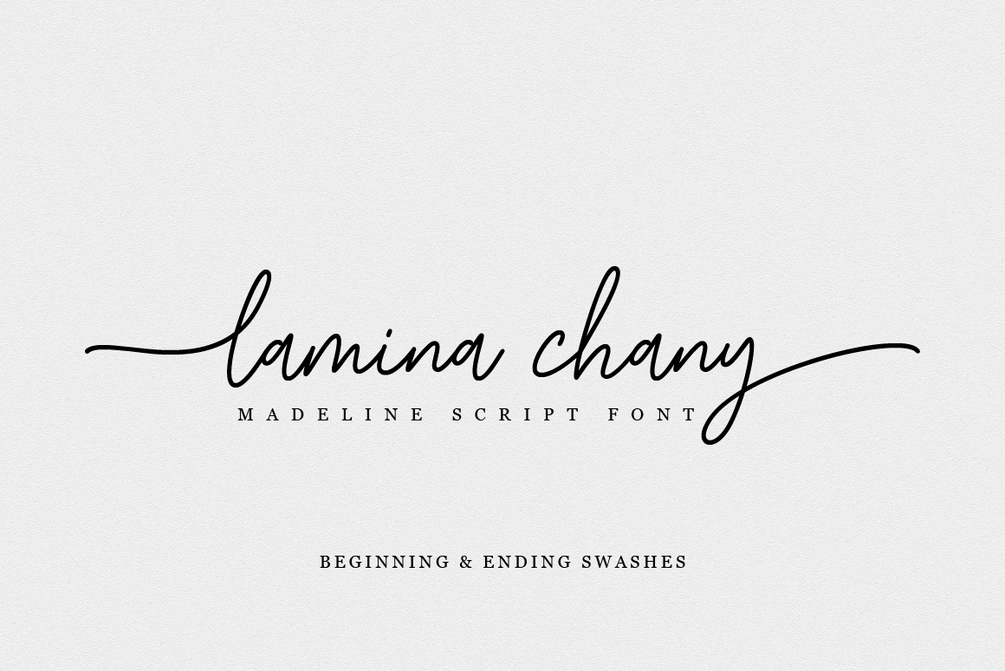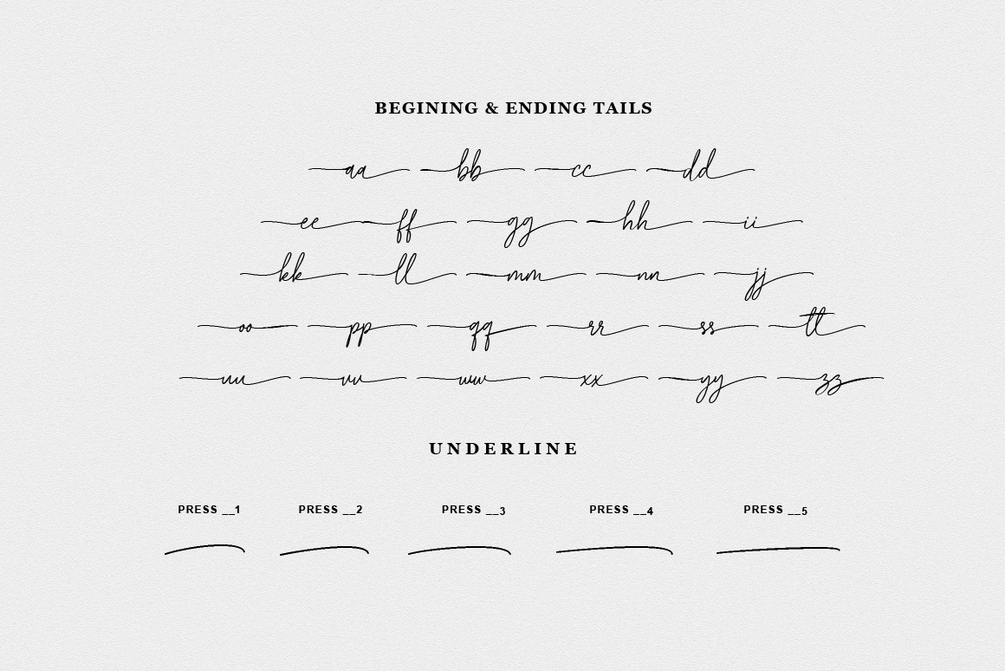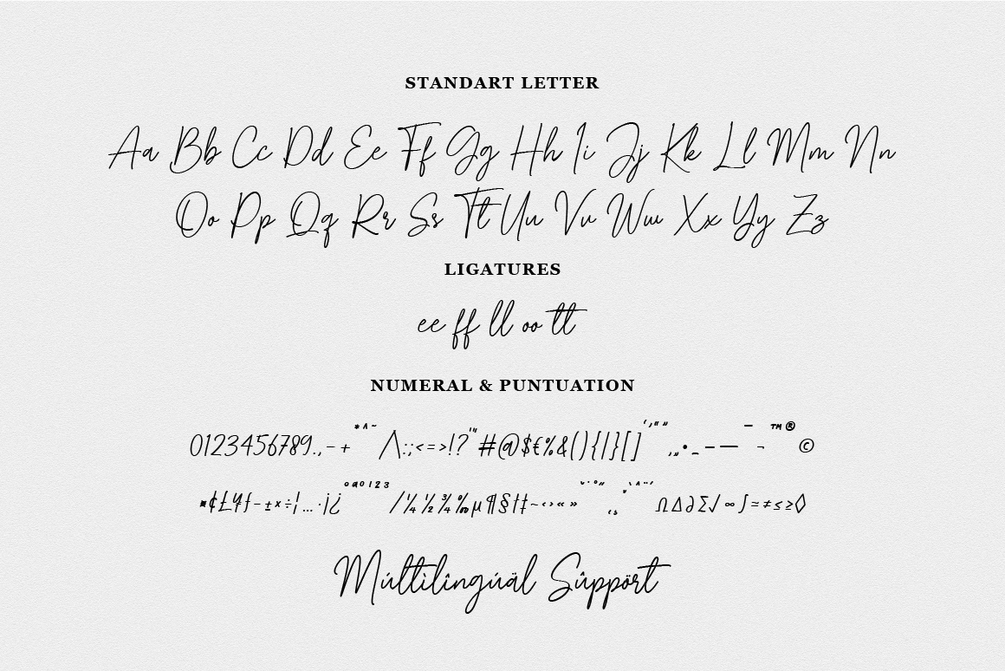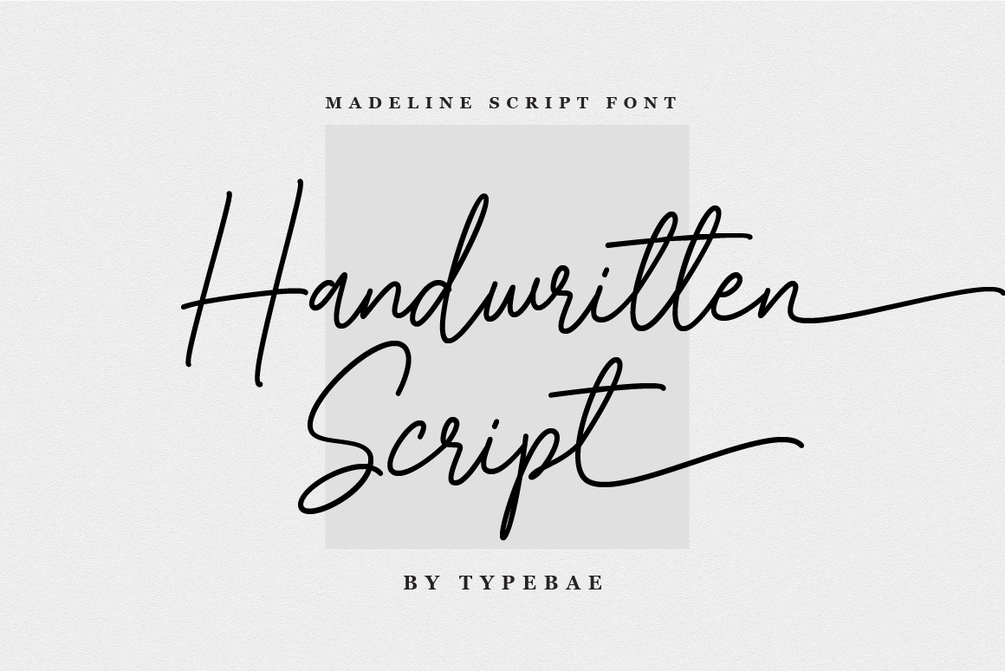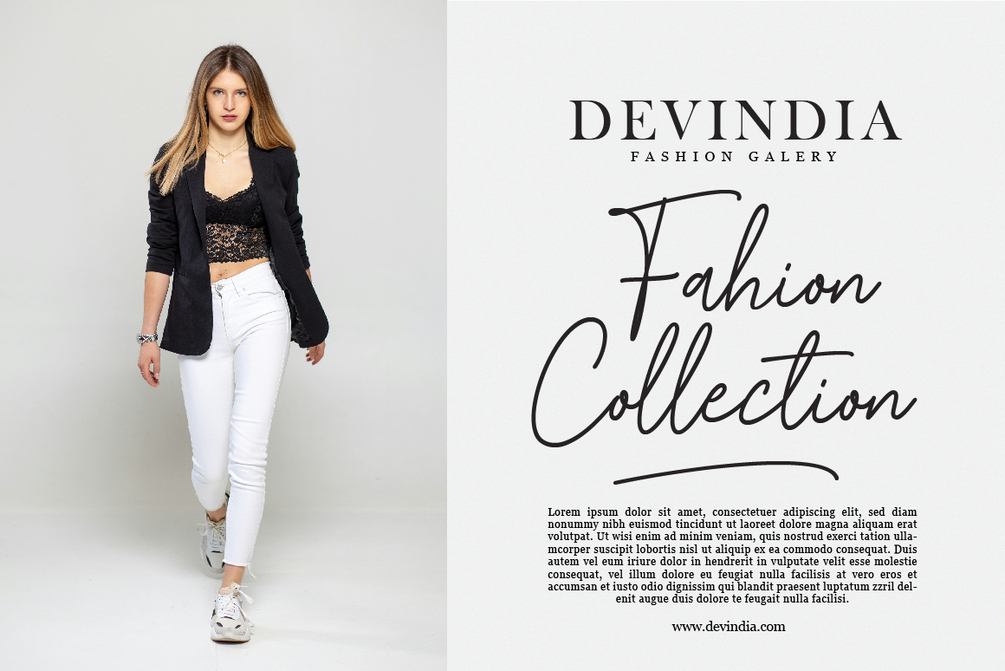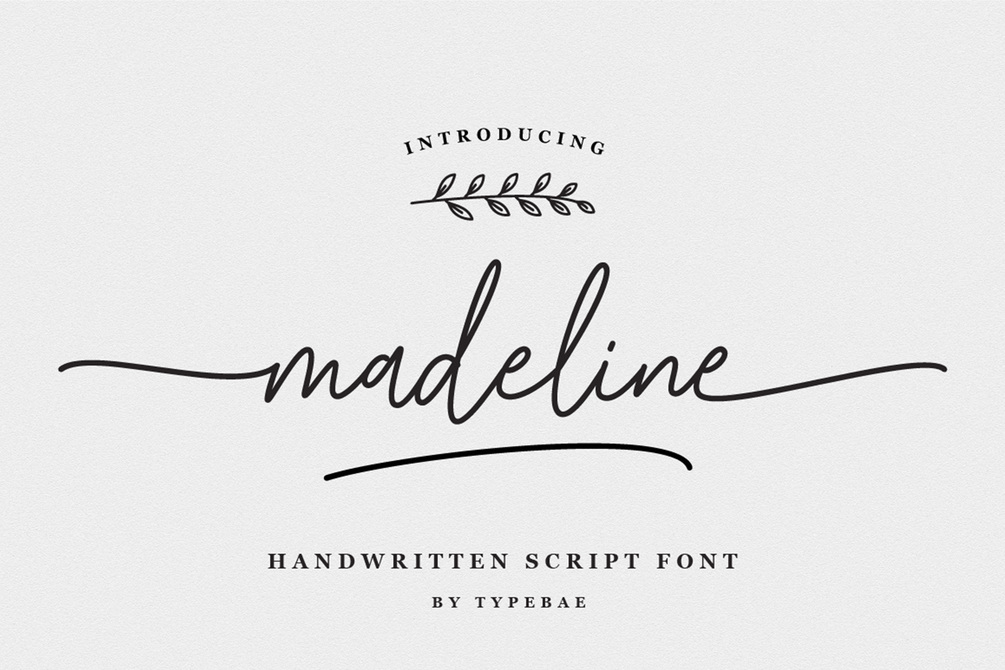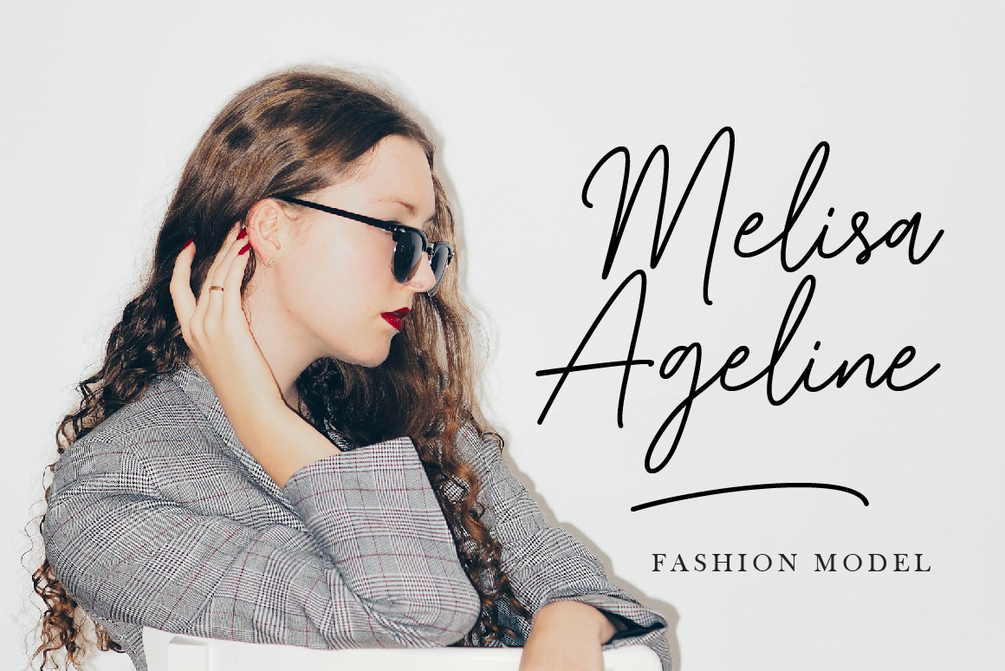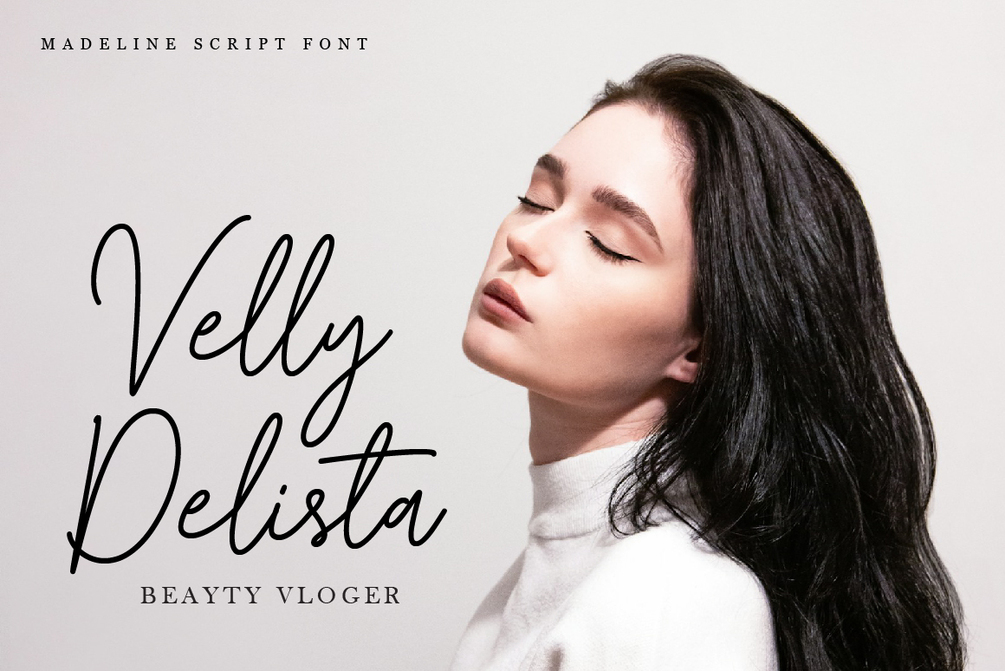
Madeline
Madeline is a modern, simple, yet authentic organic handwriting font. You will get full set of lowercase and uppercase letters, numerals and punctuation, multilingual symbols, lowercase beginning and ending swashes, ligatures and extra swashes. Madeline is suitable for branding, signature, wedding invitation, promotion, product packaging, and other needs.